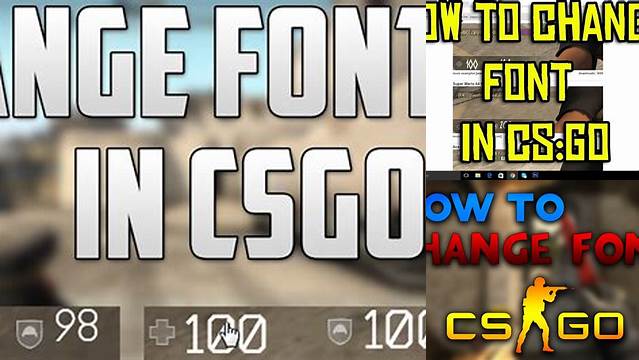
Change Fonts In CS:GO: Easy Guide
Hey guys, ever wanted to give your Counter-Strike: Global Offensive (CS:GO) a fresh look? Maybe the default font is a bit stale, or perhaps you just want something that's easier on your eyes during those intense matches. Well, you're in luck! Customizing your fonts in CS:GO is totally possible, and it's a fantastic way to personalize your game. In this guide, we'll dive deep into how you can change fonts in CS:GO, covering everything from the basics to some more advanced tweaks. Let's get started and transform your game's appearance! Understanding how to change the font can significantly improve your gaming experience by making the text more readable or simply more visually appealing. This guide will take you step-by-step through the entire process, ensuring you can easily and safely apply these changes to your game. Whether you're a seasoned gamer or new to CS:GO, these tips will help you personalize your game and make it truly your own.
Why Change Your Font in CS:GO?
Alright, before we jump into the nitty-gritty of how to change fonts, let's talk about why you might even want to. First off, aesthetics! Who doesn't love a game that looks good? Changing the font can make your game feel fresh and exciting. Maybe you're a fan of a particular font style, and you want that to be reflected in your game. Secondly, readability. The default font might not be the easiest to read, especially during hectic moments. A different font can be clearer, making it easier to see vital information like health, ammo, or chat messages. This can be a real game-changer during competitive play. Thirdly, personalization! CS:GO is a game that many of us pour hours into, so why not make it feel like it's uniquely yours? Changing the font is a simple yet effective way to add a personal touch to your game. Let's also consider accessibility. For some players, certain fonts are easier to read than others due to visual impairments or personal preferences. Changing the font can enhance the gaming experience for everyone. And of course, it’s just plain fun. Experimenting with different fonts can bring a sense of creativity and enjoyment to the game. You might even find a font that gives you a competitive edge (okay, maybe not, but it's fun to think about!). Overall, customizing your font is a straightforward way to improve your visual experience, enhance readability, and inject a bit of personality into your CS:GO gameplay. So, are you ready to get started and find the perfect font for you?
Benefits of Custom Fonts
Alright, let's dive deeper into the benefits of custom fonts in CS:GO. As we've touched on, the primary advantage is improved readability. The default font, while functional, isn't always the most user-friendly, especially under pressure. A custom font can be bolder, clearer, or simply more visually distinct, making it easier to quickly scan information during a match. This can be incredibly useful for critical stats like remaining health, ammo count, and team chat. Another significant advantage is the aesthetic upgrade. Let's be honest, the default font can get a bit boring after a while. Changing it allows you to personalize your game and make it feel more like your own. Whether you're into sleek modern fonts, bold futuristic ones, or something more classic, there's a font out there to match your style. Furthermore, the use of custom fonts can improve the overall immersion in the game. A well-chosen font can complement the game's environment and add to the player's overall experience. This is particularly beneficial for those who like to customize their entire game interface. Custom fonts can also help reduce eye strain. Some players find that certain fonts are easier on the eyes than others. By experimenting with different fonts, you can find one that reduces fatigue during long gaming sessions. This aspect is often overlooked, but it can make a real difference in your comfort and performance. Customization is another major plus. CS:GO provides a variety of settings, and font customization adds another layer of personalization. It's about making the game feel uniquely yours. This customization extends beyond just the font itself, as you can often adjust the font size, color, and other visual attributes to fit your exact preferences. So, whether you are seeking better readability, a cooler look, or a more personalized experience, custom fonts offer a whole bunch of benefits to enhance your CS:GO gameplay.